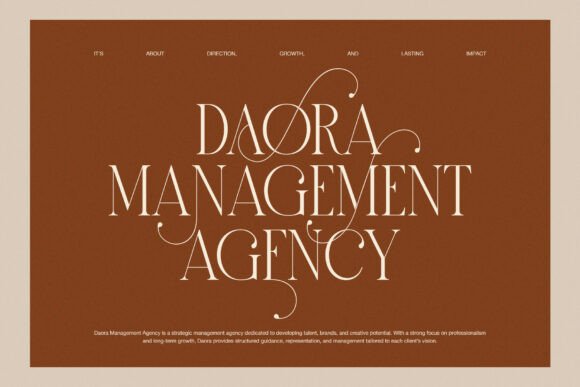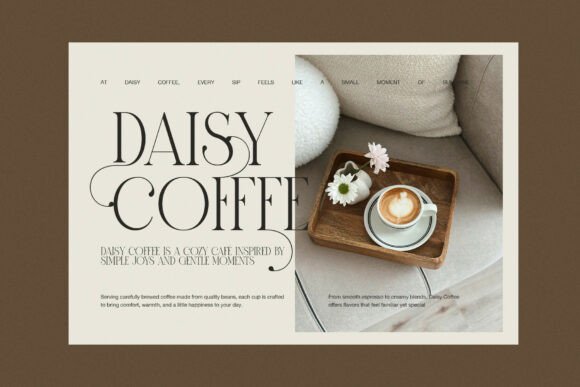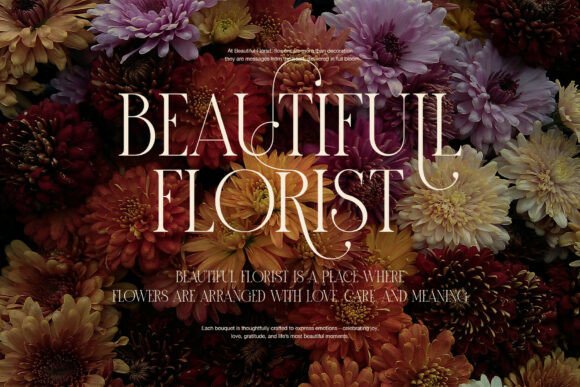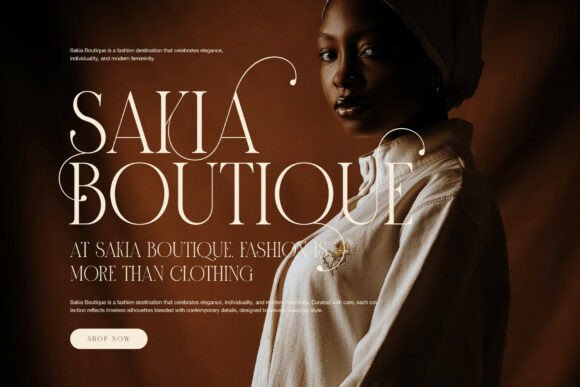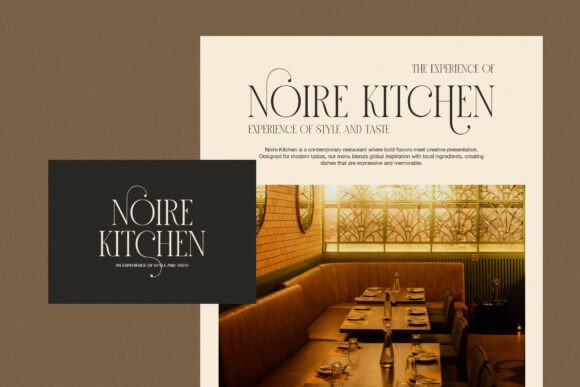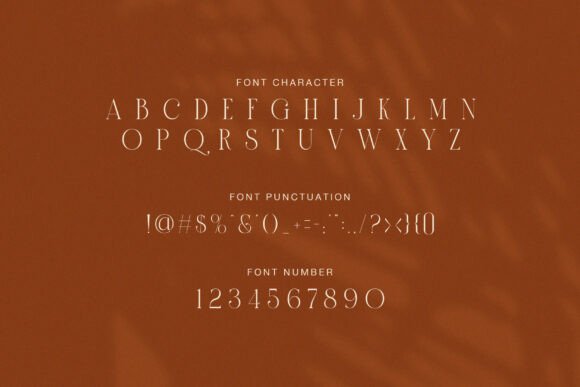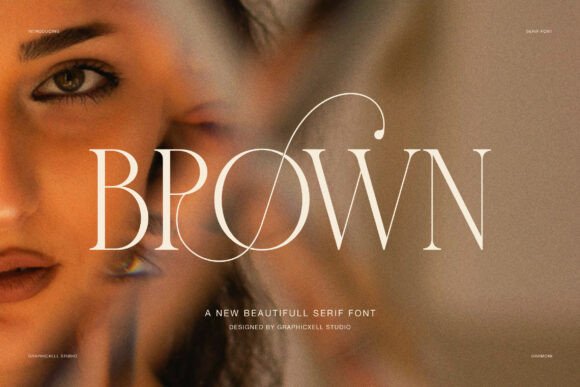
Brown Font: Elevate Your Design with Elegance and Sophistication
In the world of typography, a well-crafted font can make all the difference in conveying a message, expressing a brand’s identity, and captivating an audience. Introducing Brown Font, an elegant serif display font designed to exude luxury, confidence, and artistic charm. Inspired by the refined styles of fashion editorials and branding, Brown seamlessly blends classic serif structure with flowing decorative details, resulting in a font that delivers a powerful visual voice across modern design projects.
The Characteristics of Brown Font
Brown Font boasts a range of features that make it an ideal choice for designers seeking to add a touch of sophistication to their work. Some of its key characteristics include:
- Smooth Contrast: Brown’s carefully crafted strokes exhibit smooth contrast, guiding the eye and creating a natural rhythm in headlines and logos.
- Long Sweeping Terminals: The font’s terminals are designed to be long and sweeping, adding a sense of movement and fluidity to every word.
- Stylish Curves: Brown’s curves are stylish and refined, imbuing the font with a sense of elegance and poise.
- Expressive Alternates: The font includes a range of expressive alternates, allowing designers to add variety and uniqueness to their typography.
- Unique Ligatures: Brown also features unique ligatures, enabling designers to create typography that feels crafted and exclusive.
The Inspiration Behind Brown Font
Brown Font draws inspiration from the world of fashion editorials and refined branding styles. The font’s design is influenced by the luxurious and sophisticated aesthetic often found in high-end fashion publications and brand identities. This inspiration is evident in the font’s elegant serif structure, flowing decorative details, and refined strokes.
Using Brown Font in Design Projects
Brown Font is an incredibly versatile font, suitable for a wide range of design projects, including:
- Headlines and Titles: Brown’s elegant serif structure and smooth contrast make it an ideal choice for headlines and titles.
- Logos and Branding: The font’s refined strokes and stylish curves make it perfect for creating logos and brand identities that exude luxury and sophistication.
- Packaging and Advertising: Brown’s expressive alternates and unique ligatures make it an excellent choice for packaging and advertising design, allowing designers to create typography that stands out and captures attention.
Why Choose Brown Font?
With so many fonts available, why choose Brown Font? Here are just a few reasons why Brown stands out:
- Elegance and Sophistication: Brown Font exudes elegance and sophistication, making it perfect for designers seeking to create high-end designs.
- Versatility: The font’s versatility makes it suitable for a wide range of design projects, from headlines and titles to logos and branding.
- Unique Character: Brown’s expressive alternates and unique ligatures ensure that designs created with the font have a unique character that sets them apart.
In conclusion, Brown Font is an exceptional serif display font that offers a unique blend of elegance, sophistication, and artistic charm. With its smooth contrast, long sweeping terminals, and stylish curves, Brown delivers a powerful visual voice across modern design projects. Whether you’re a designer, craftsperson, or simply someone looking to elevate your typography, Brown Font is an excellent choice. So why not give Brown Font a try and experience the difference it can make in your designs?